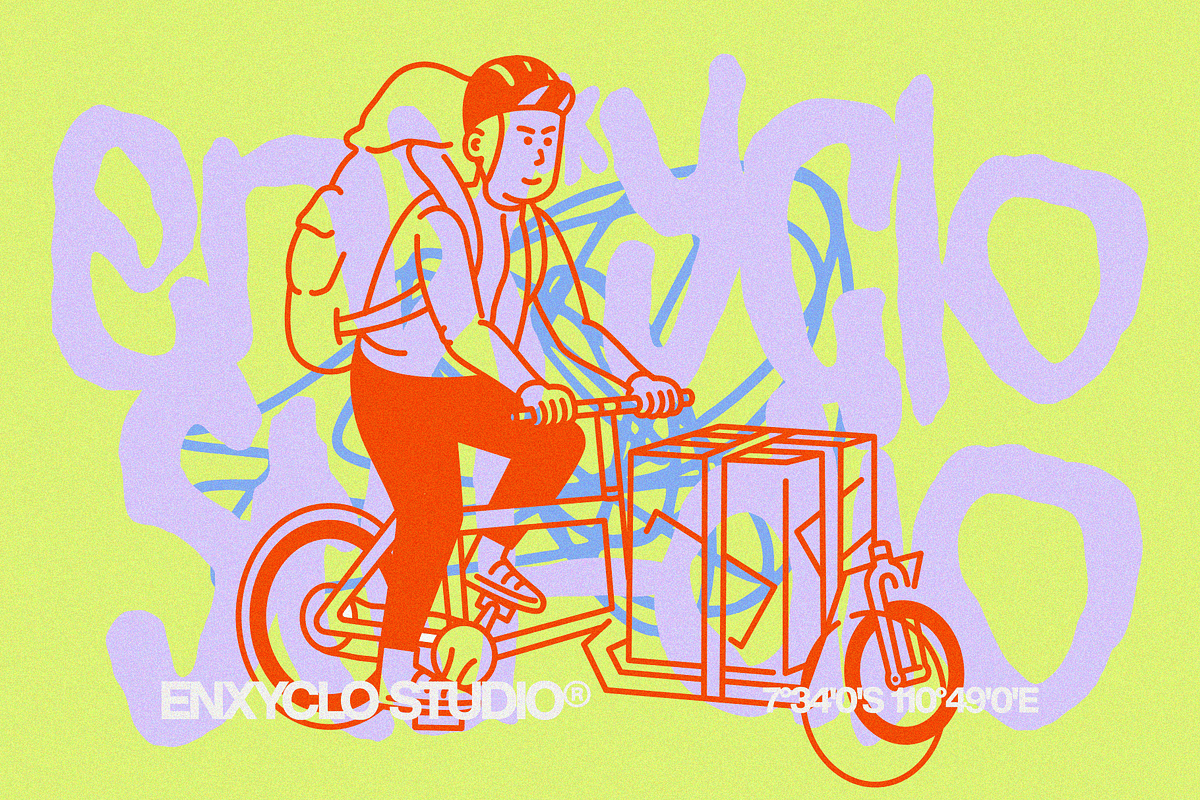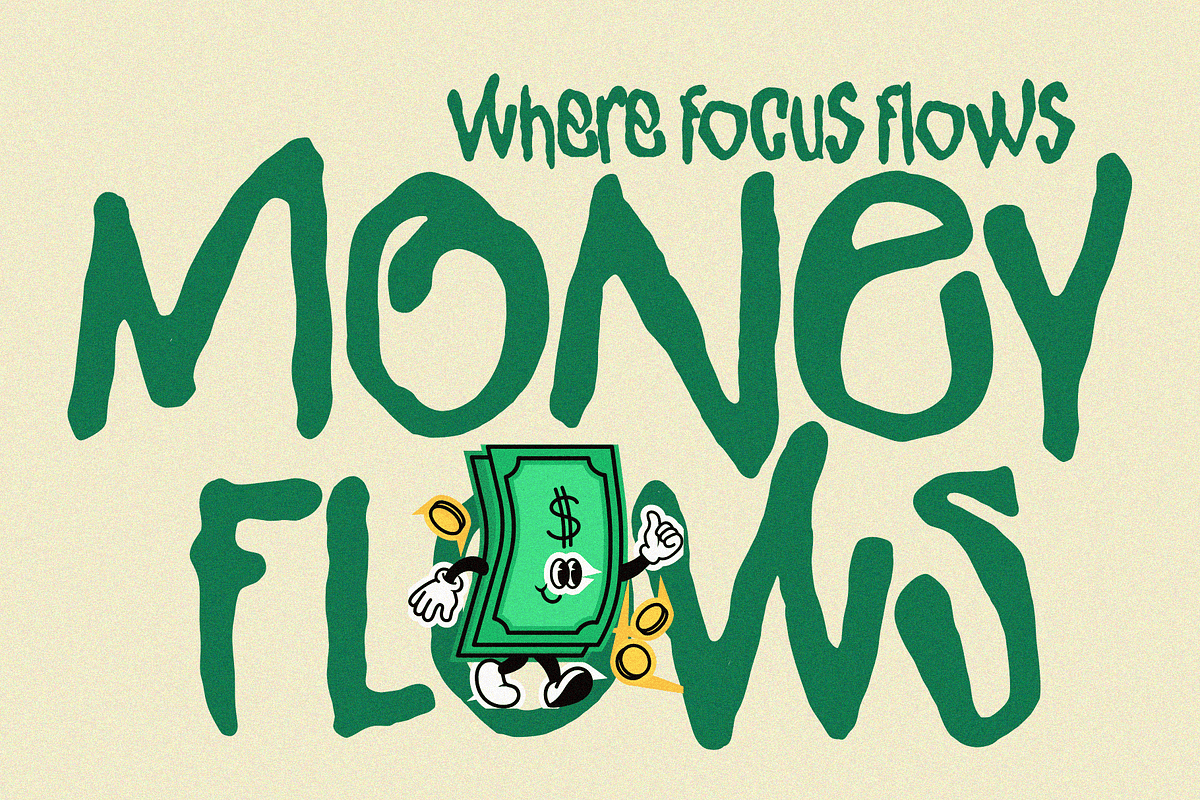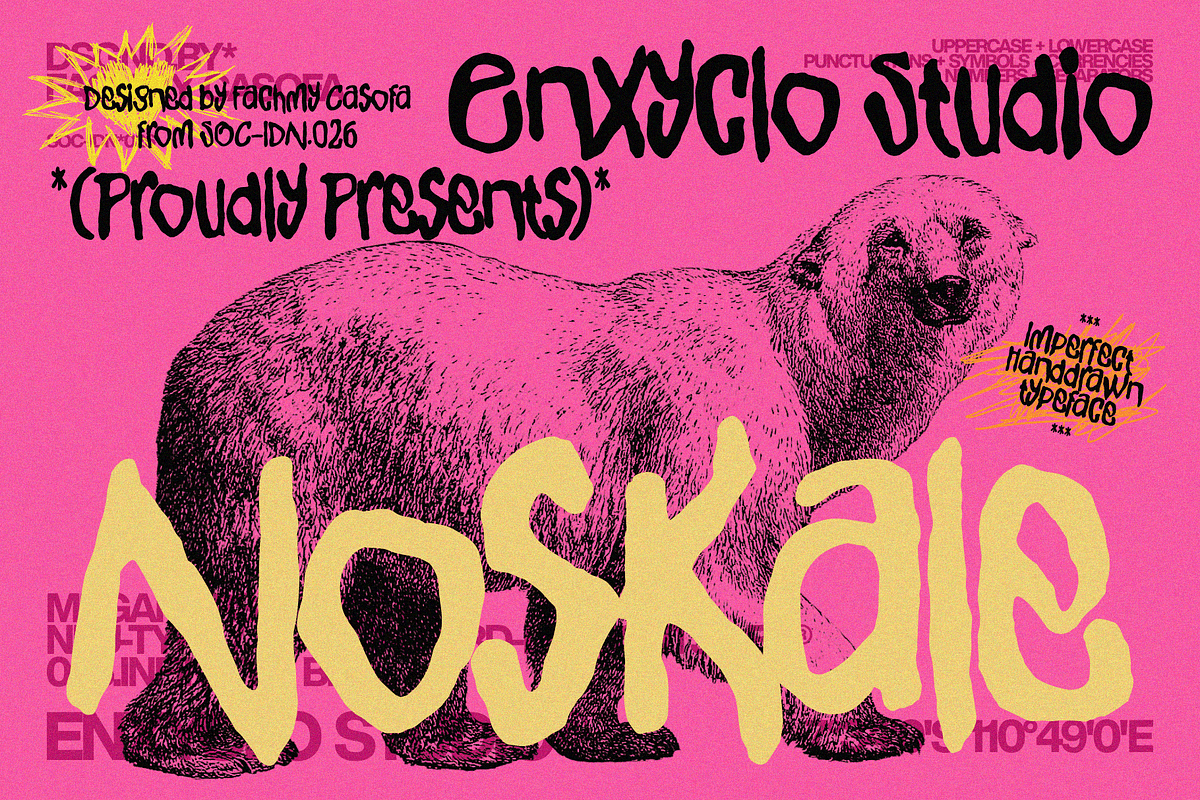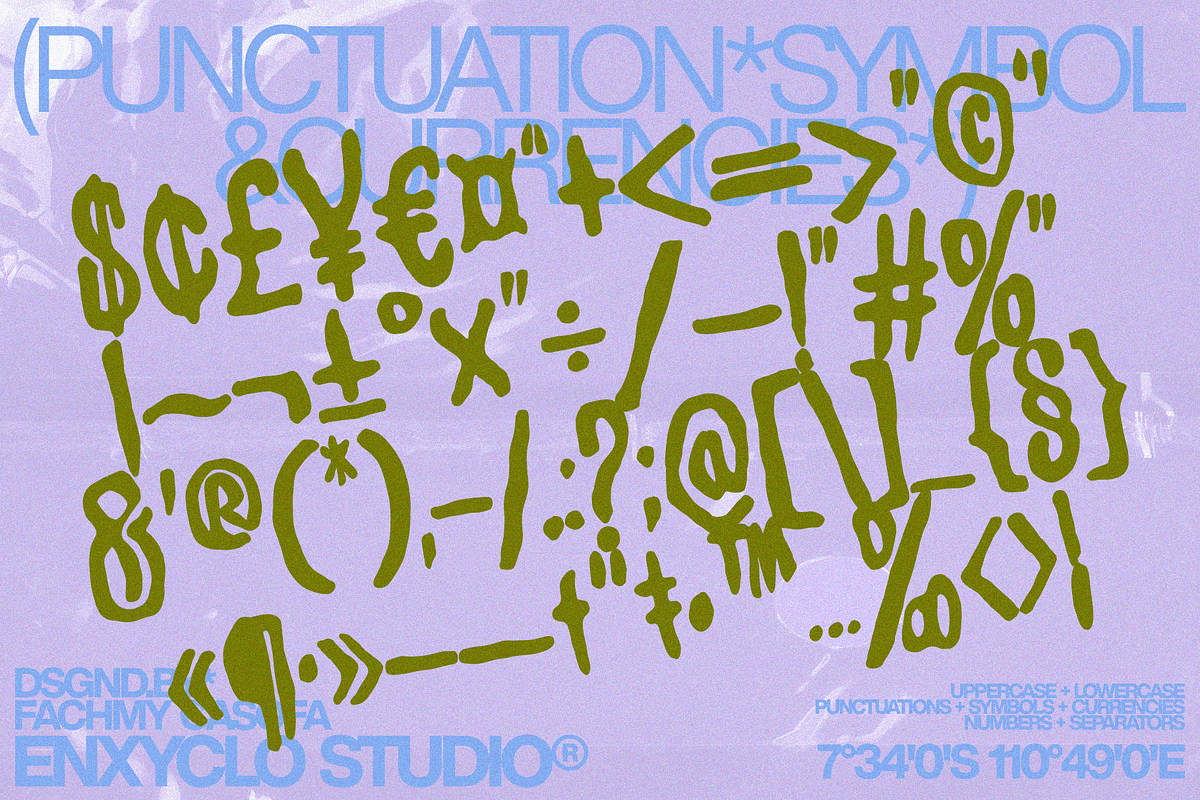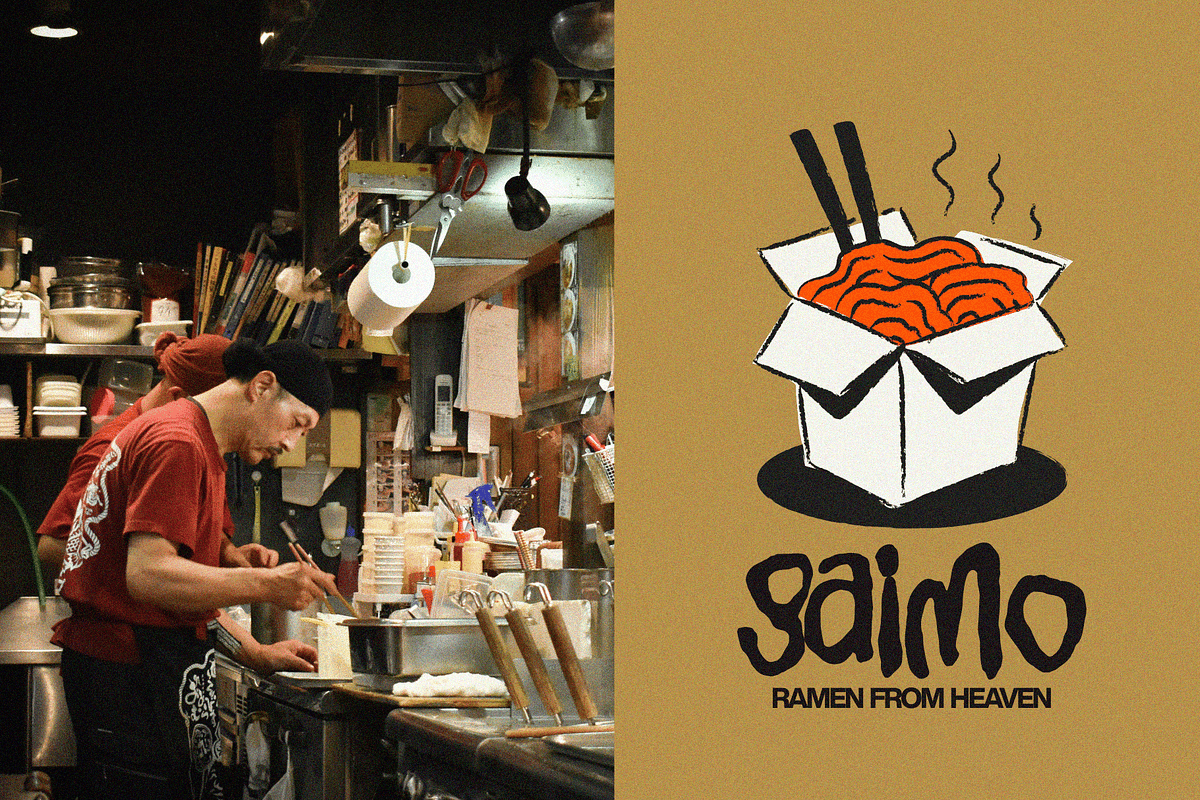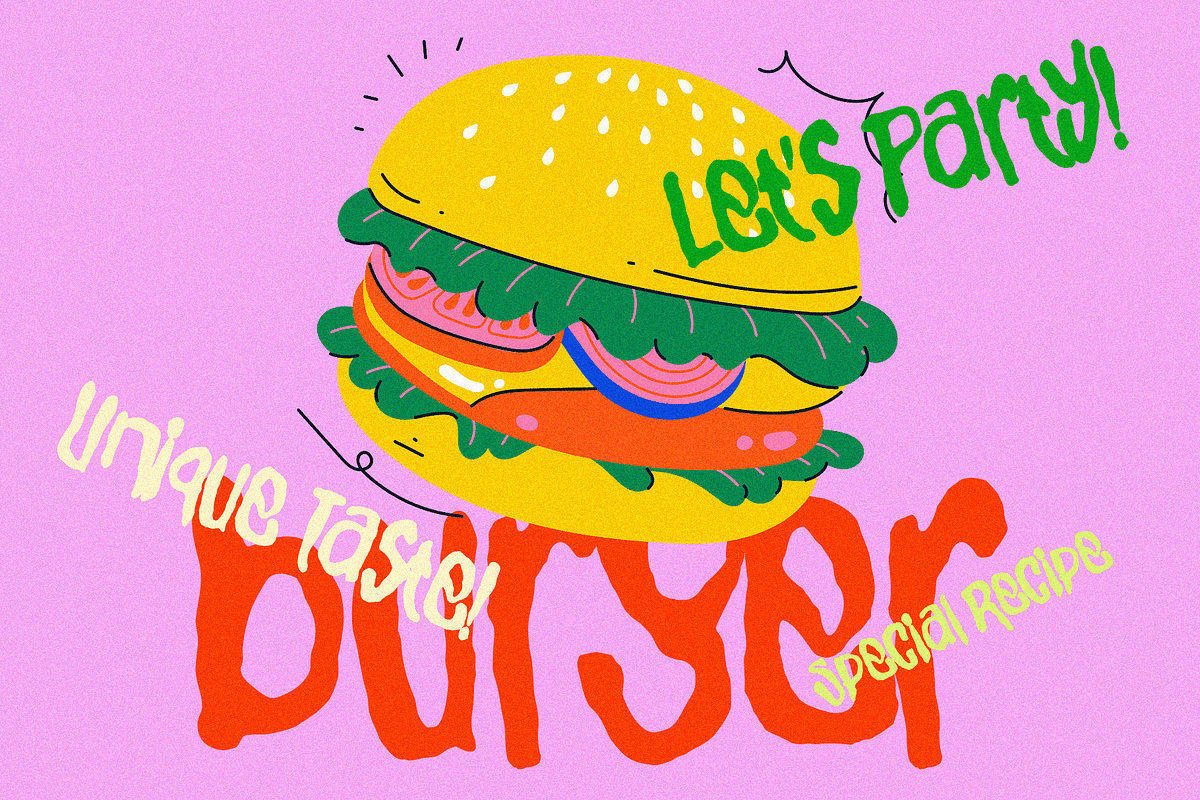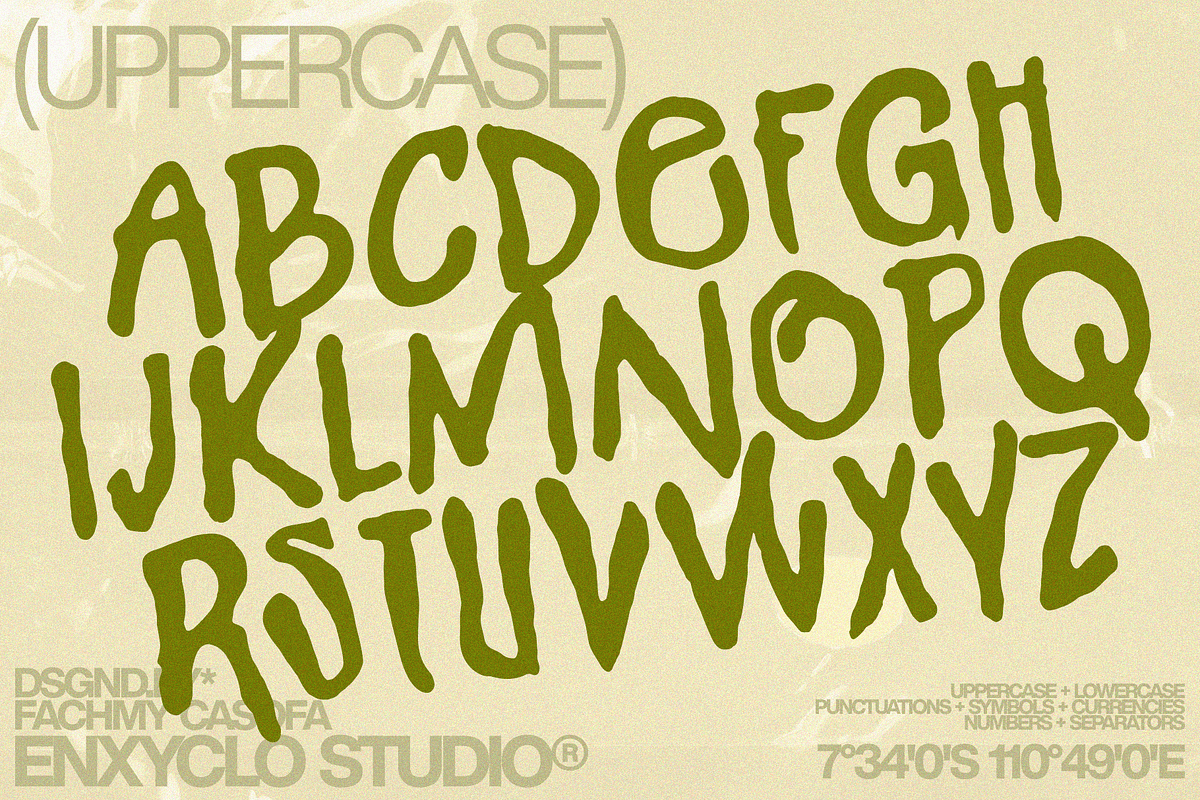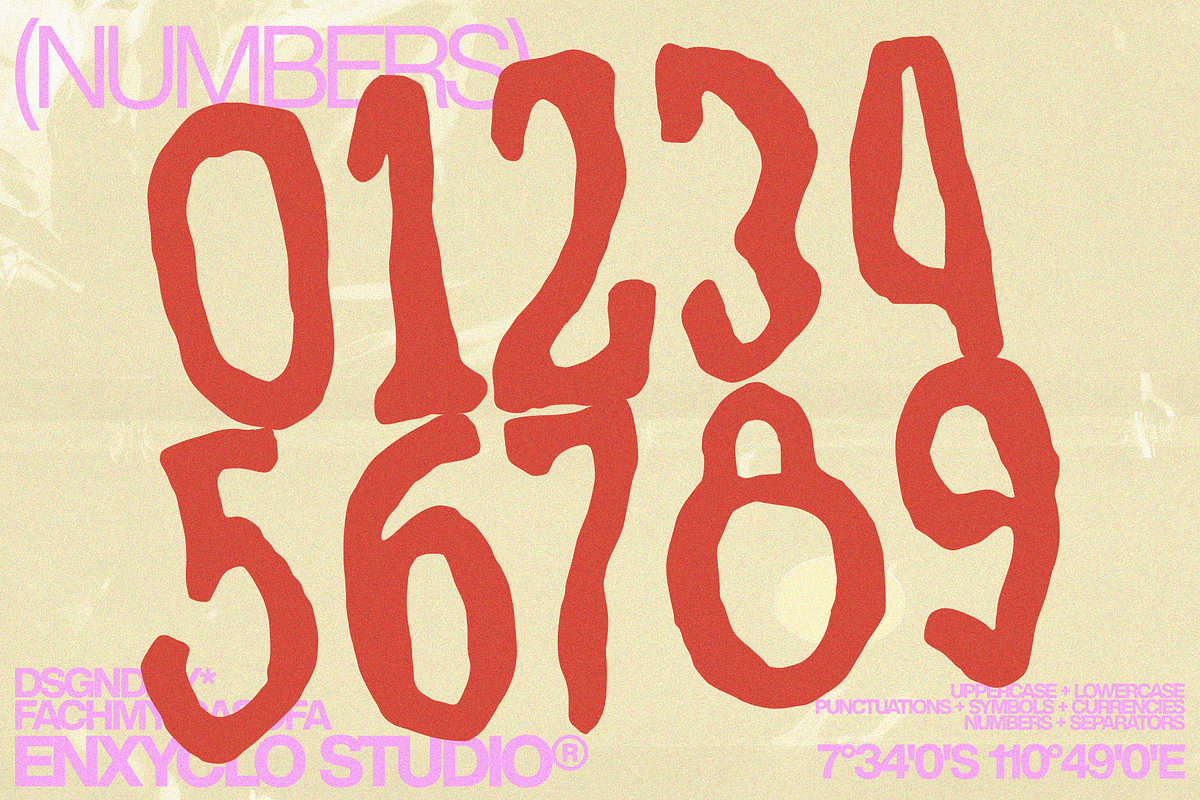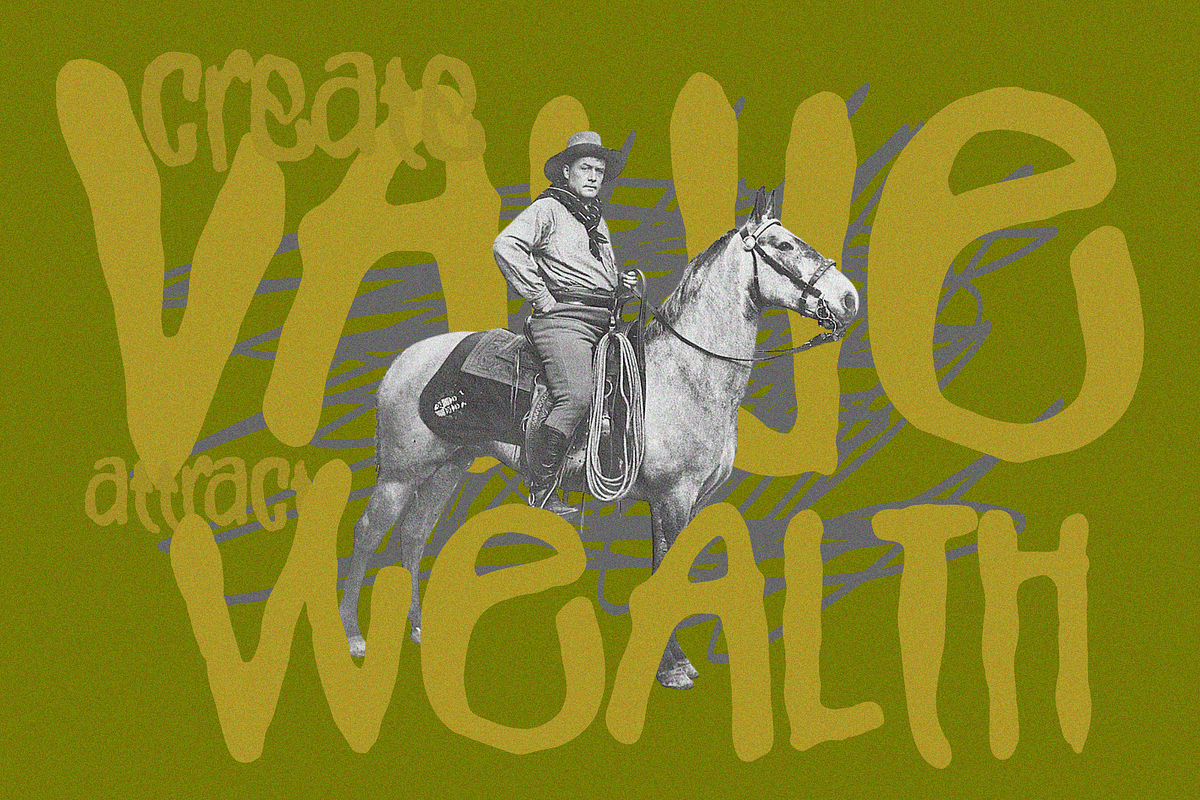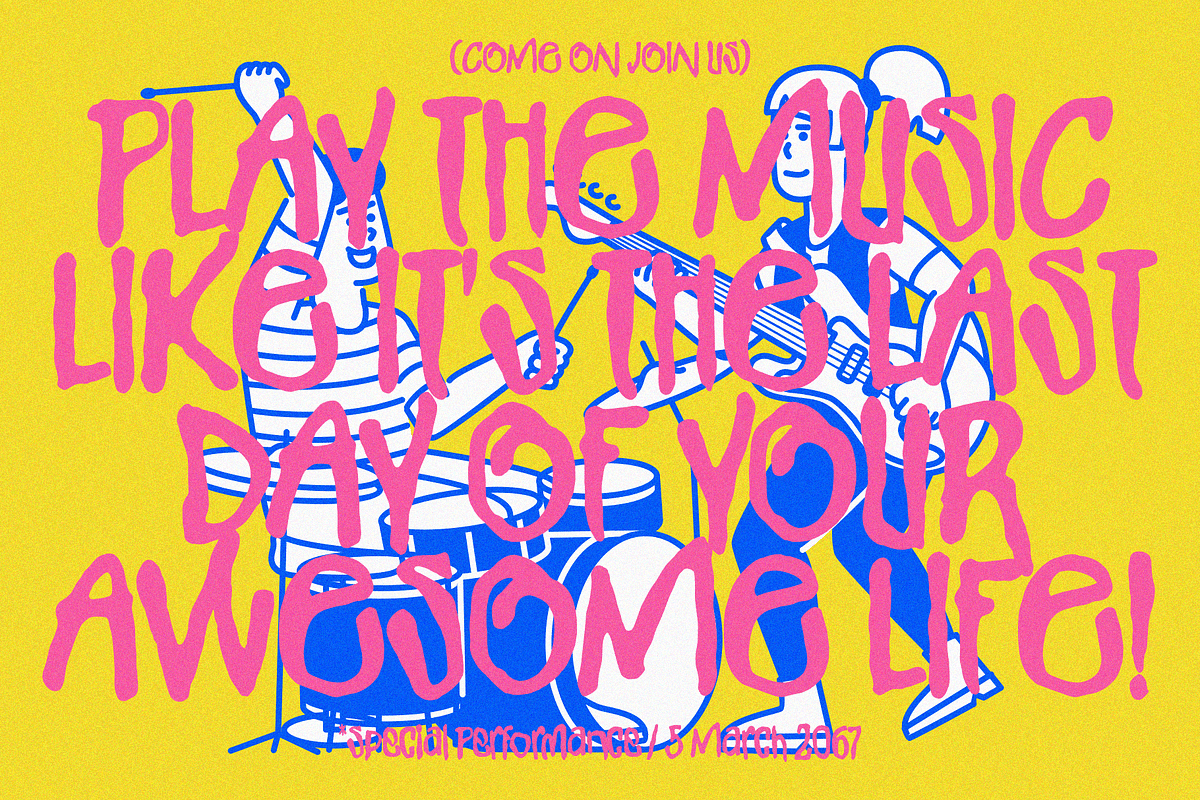
NOSKALE — Imperfect Handdrawn
NOSKALE is an imperfect handdrawn branding font that celebrates raw creativity and expressive character. Built with gritty strokes and natural handdrawn imperfections, this typeface captures the energy of urban visuals and industrial-inspired design. The result is a bold and authentic font that feels organic, raw, and full of personality.
Each letterform is crafted to highlight expressive movement and rough textures, creating a distinctive look that stands out in modern branding and visual design. NOSKALE blends the spontaneity of handmade lettering with a strong contemporary structure, making it ideal for projects that need a gritty yet stylish visual presence.
With its bold and imperfect style, NOSKALE works beautifully for posters, headlines, and branding visuals that demand attention. The raw and expressive character brings a unique voice to creative projects, helping brands communicate authenticity, attitude, and artistic individuality.
Whether used for bold visual identities, expressive poster layouts, or creative branding concepts, NOSKALE delivers a powerful handcrafted aesthetic that feels modern, urban, and unapologetically original.
FEATURE
- Uppercase letters
- Lowercase letters
- Punctuation marks
- Symbol set
- Currency symbols
PERFECT FOR
- Creative logo & logotype design
- Branding & brand identity
- Modern agency visuals
- Contemporary packaging
- Poster & headline design
- Social media graphics
- Creative campaigns & visual storytelling